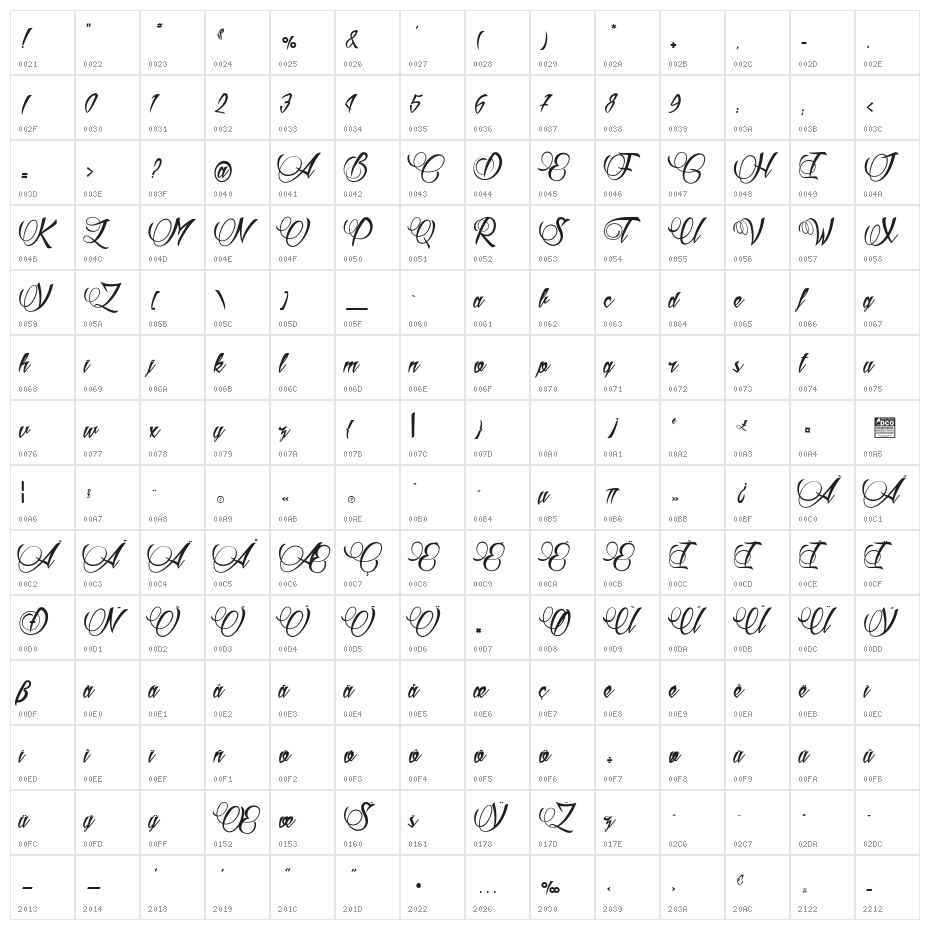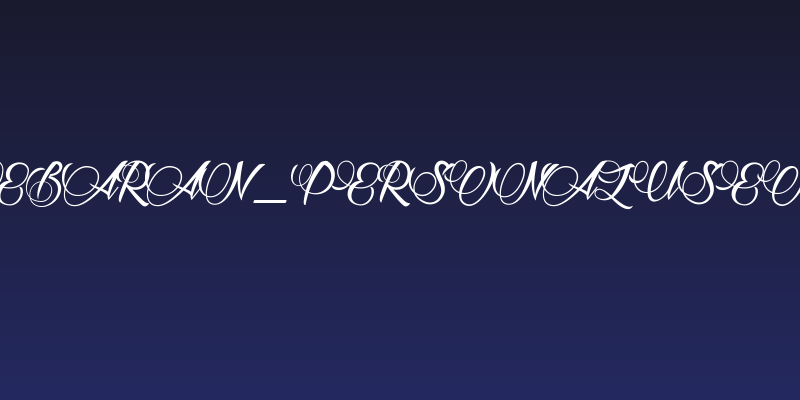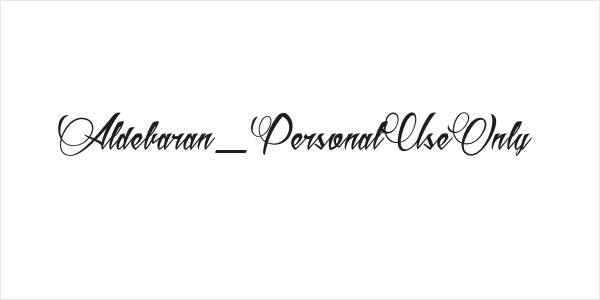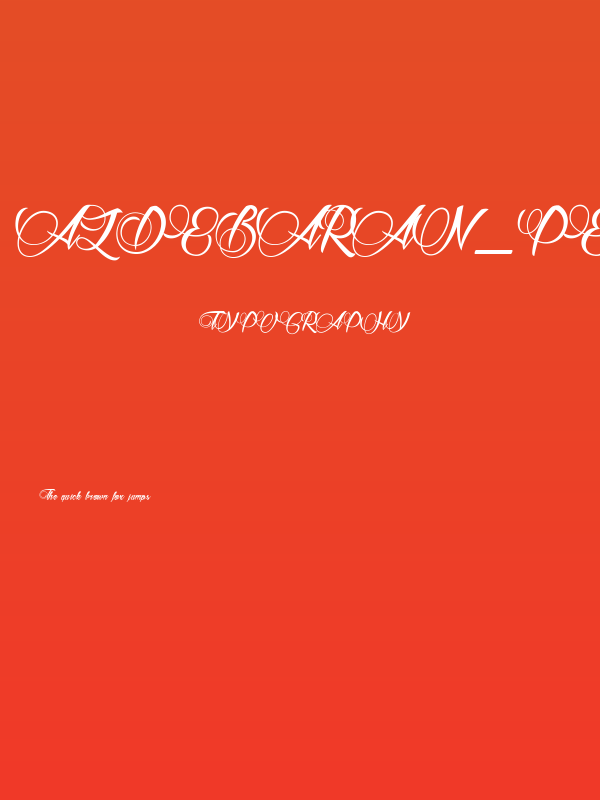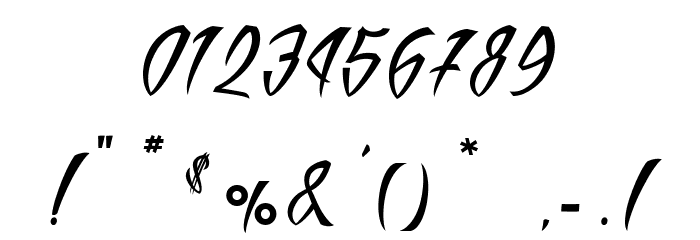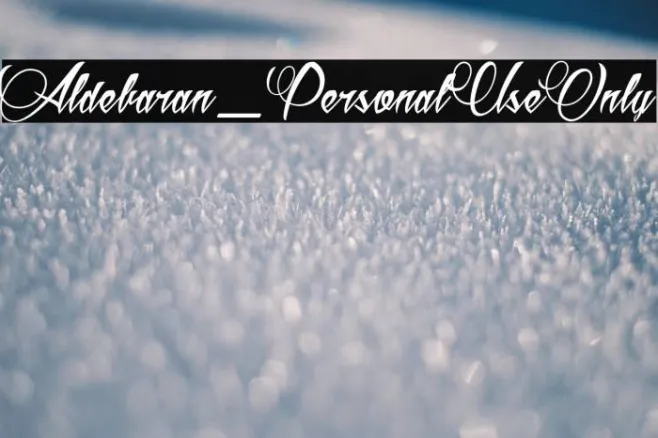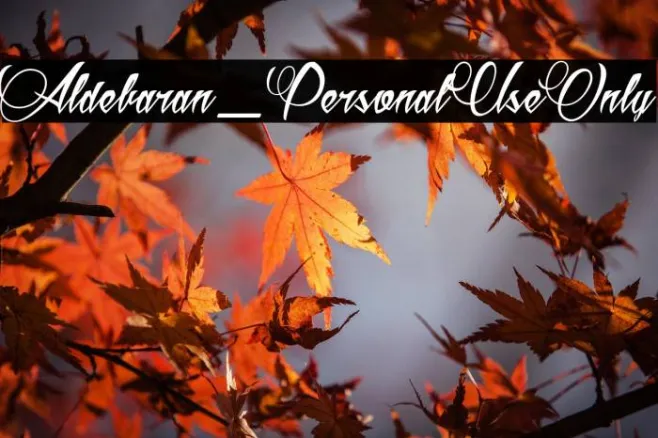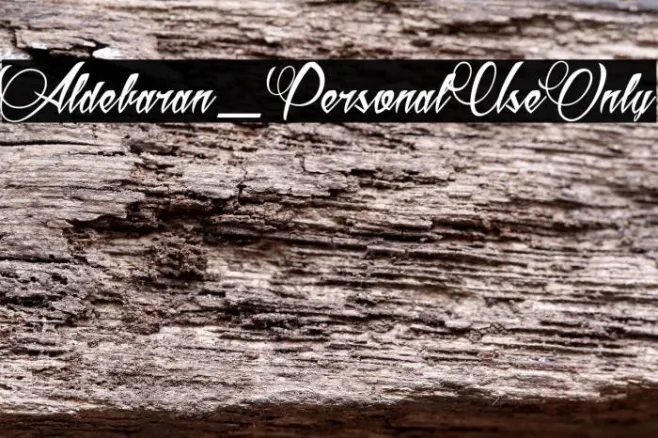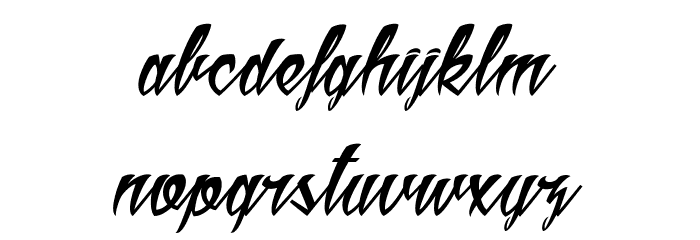
Aldebaran_PersonalUseOnly Font
Aldebaran_PersonalUseOnly Description
This font features an elegant and sophisticated script style, characterized by its flowing, interconnected letterforms. The uppercase letters are particularly ornate, with intricate loops and swirls that give a sense of luxury and refinement. The lowercase letters maintain a more straightforward script style, offering a nice contrast to the elaborate capitals. The numerals are designed to match the overall aesthetic, with a slight slant and decorative elements. Special characters are included, maintaining the same elegant style, making this font versatile for various design needs.
| Use Case | Logos, Invitations, Decorative Headlines |
| Proposed Projects | Ideal for wedding invitations, luxury branding, elegant logos, and decorative headlines. |